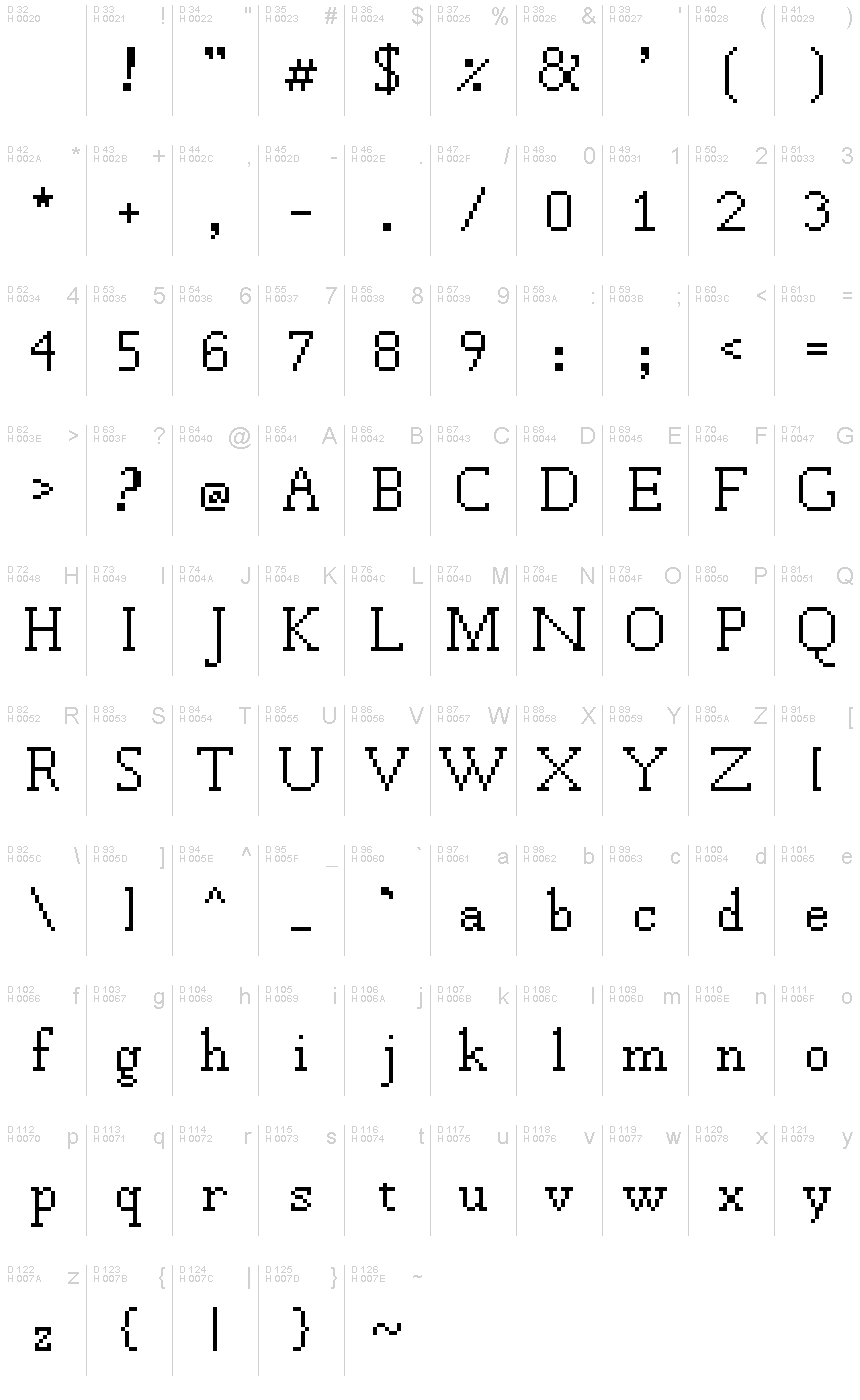
calamity, Regular
Calamity, a meticulously crafted bitmap font by Doph, offers a refreshing blend of retro charm and contemporary clarity. With its pixelated flair, this semi-light typeface pays homage to the digital aesthetics of the past while maintaining a firm foothold in modern design sensibilities. Drawing inspiration from Adobe Jenson's classic serif structure, Calamity introduces a low-fi twist to this time-honored foundation.
The font's pixel-perfect serifs and clean lines make it an intriguing choice for designers seeking to infuse their projects with a touch of nostalgia without sacrificing readability. Its serifs add a degree of sophistication that elevates it beyond typical bitmap fonts, making it suitable for an array of creative endeavors—from video game interfaces and digital art installations to unique branding materials or eye-catching web graphics.
Calamity shines in contexts where the balance between old-school cool and sleek legibility is paramount. Whether you're crafting something evocative of vintage computer systems or looking for a distinctive text option that stands out against the sea of smooth vectors, Calamity is poised to deliver style with substance.